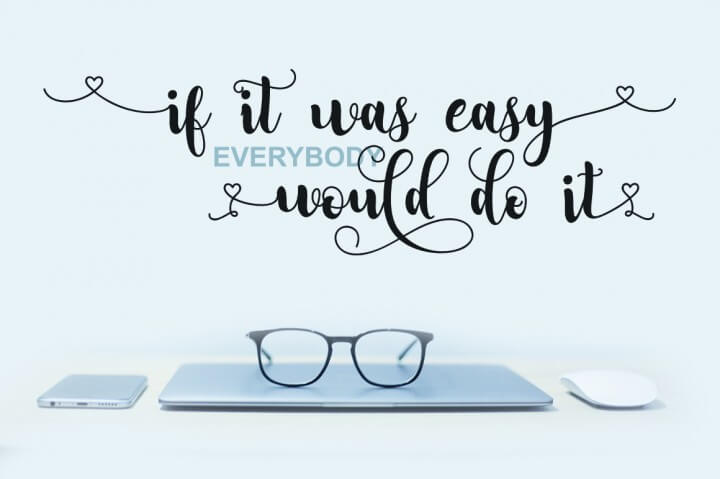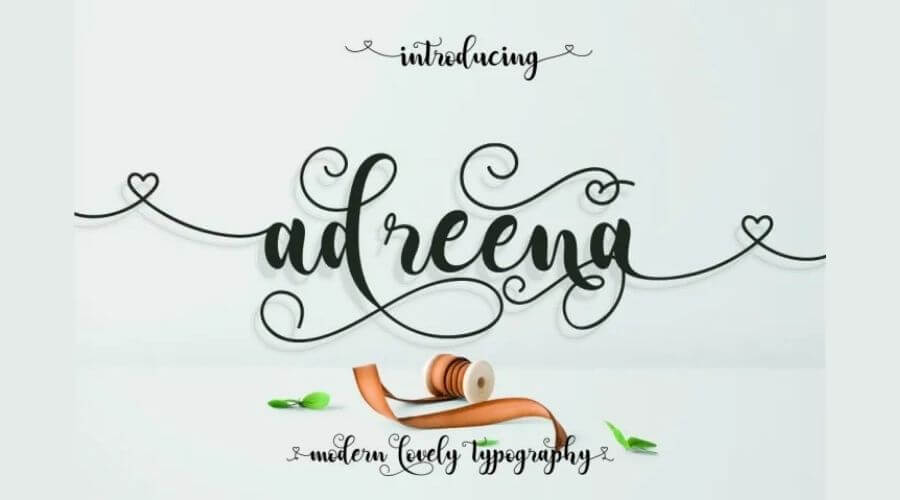
Adreena Script Font Free
Greetings, friends! This is an excellent alternative if you’re seeking a unique Script or calligraphic design for your design work. Adreena Script Font is now available! Aqr font created and shared Adreena Script. TTF and OTF files are available formats for this lovely Script and calligraphy font. Windows, Mac OS X, Linux, Cricut, Silhouette, and other cutting machines are all compatible with the font. This font is also PUA encoded, which is a nice feature for its users.
The typeface features lovely glyphs that make it ideal for any form of design. This font is ideal for designers who enjoy creating adorable designs and lightweight backgrounds. When you add a few curves to the texture of the typeface, it becomes even more beautiful and appealing. When you’re using a typeface, be sure it’s a good item like this one. This font looks wonderful in italic form or language because italic curves suit the typeface the best.
The Adreena script can be used for branding, invitations, t-shirts, mailings, and any other design you can think of. The typeface looks fantastic against any light background and has already been utilized in a number of light background-related projects with great success. The font is ideal for romantic and adorable wallpaper and greeting cards.
| Style | Script, Calligraphy |